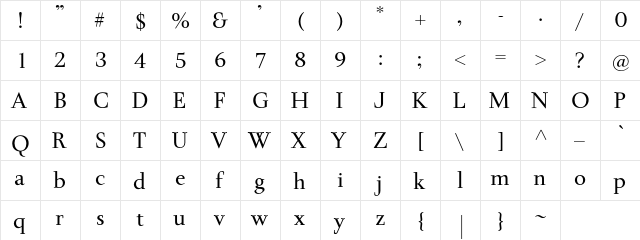
Medio Regular
| Designer | arro |
Design Context for Medio Typeface
Medio offers clean, dependable letterforms without strong stylistic allegiance, making it a practical choice for designers who need flexibility.
Pro Tip: Use Medio in both headline and body roles to test its range before committing to a single application.